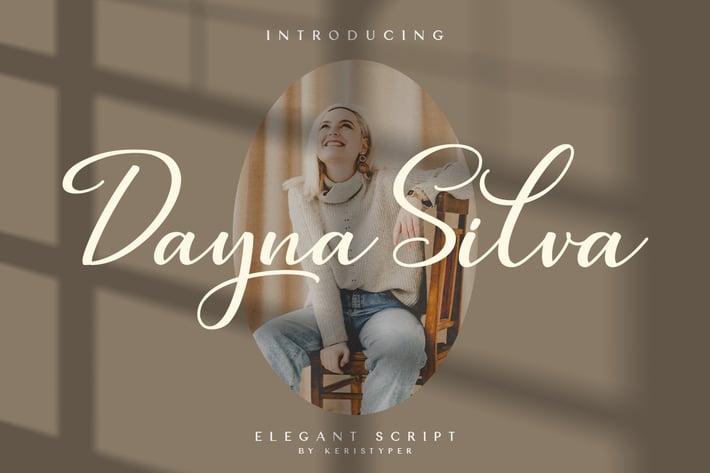
Dayna Silva Font
Dayna Silva - Elegant Script Font is a modern handwritten script font with lovely touch. Dayna Silva Font will work perfectly for fashion, e-commerce brands, trend blogs, wedding boutiques or any business that wants to appear upscale and chic.
Dayna Silva Font multilingual support:
Afrikaans, Albanian, Catalan, Danish, Dutch, English, Estonian, French, Finnish, German, Icelandic, Indonesian, Italian, Malay, Norwegian, Portuguese, Spanish, Swedish, Zulu, and many more.
Standard & Multilingual glyphs